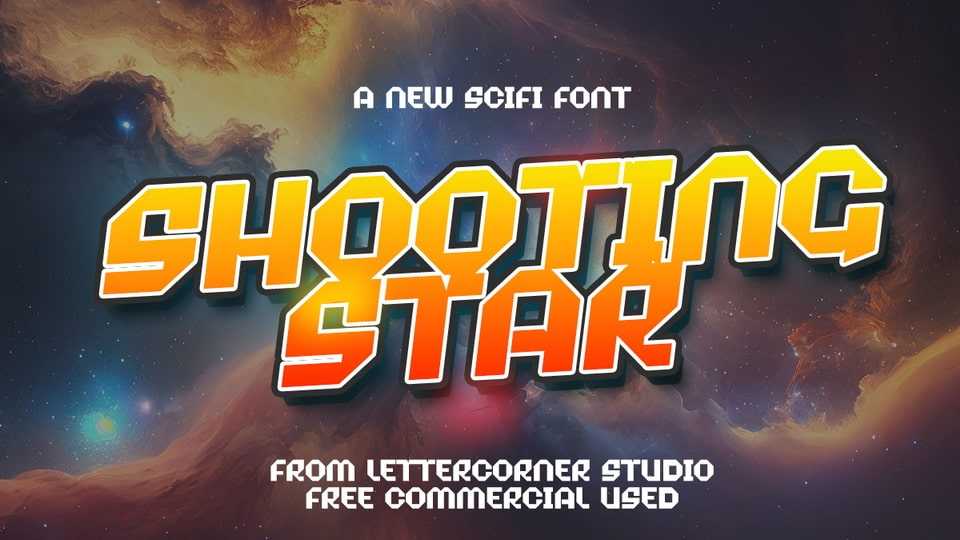
Download Shooting Star font, a sci-fi display typeface. It’s quirky letterforms make Shooting Star font perfect for branding, headlines, logotype, stickers, editorial design, and more.
Designer: Mevricks Studio